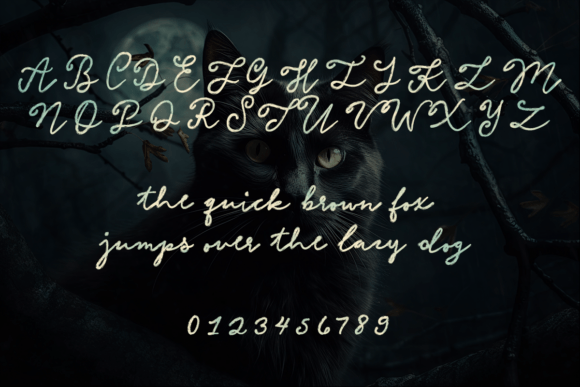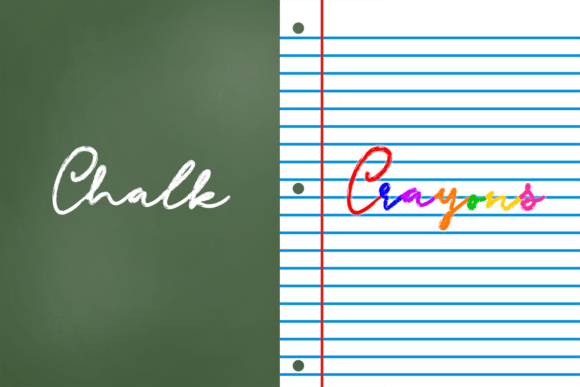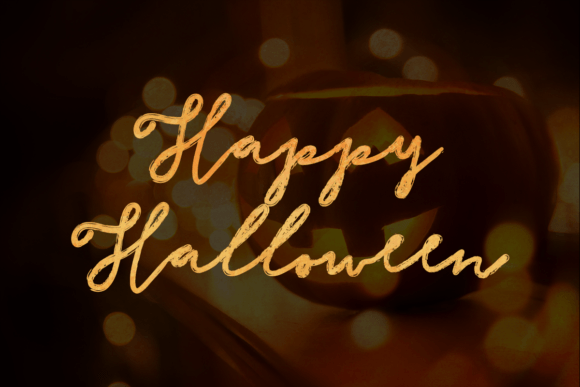
Introduction to Magical Rhymes Font
As a designer, there’s nothing quite like the thrill of discovering a new font that perfectly captures the essence of a creative project. For me, that moment came when I stumbled upon the Magical Rhymes Font – a whimsical cursive script that instantly transported me to a world of spooky fun and Halloween magic.
With its chalk-like, bouncy feel, the Magical Rhymes Font is a game-changer for designers looking to add a playful touch to their projects. Whether you’re crafting invitations, banners, or other spooky delights, this font is sure to bring a smile to your face and a dash of magic to your design. Its hand-drawn charm is simply irresistible, and its transparent background makes it a breeze to work with – a true high-quality design resource for any creative project.
Key Features of Magical Rhymes Font
- Unique and Creative Typography: Magical Rhymes Font offers a distinctive and imaginative style, perfect for creative projects that require a touch of whimsy.
- High-Quality Design Resource: This font is designed to provide a high-quality experience for designers, with clear and crisp lines that are ideal for a variety of design applications.
- Transparent Background: The Magical Rhymes Font features a transparent background, making it easy to combine with other design elements and create a seamless look.
- Perfect for Creative Projects: The Magical Rhymes Font is perfect for designers who are working on creative projects, such as children’s books, greeting cards, and other design applications that require a touch of magic and whimsy.
Honest Review: Magical Rhymes Font
I recently came across the Magical Rhymes Font, a free download that has both impressed and disappointed me. As a designer, I appreciate high-quality design resources, and this font is no exception. Its whimsical and playful feel makes it perfect for creative projects that require a touch of magic.
- ✨ Unique and eye-catching design: The Magical Rhymes Font is unlike any other font I’ve seen, making it an excellent choice for designers looking to add some personality to their work.
- ✨ Versatility: This font can be used for a wide range of creative projects, from children’s books to advertising campaigns.
- ✨ High-quality vectors: The font’s vectors are crisp and clean, making it perfect for designs that require a transparent background.
However, there are some limitations:
- ⚠️ Limited font weights: The Magical Rhymes Font only comes in a few font weights, which may limit its use in certain design contexts.
- ⚠️ No extended character set: The font only includes the standard Latin character set, which may not be suitable for designs that require non-Latin languages.
Overall, I think the Magical Rhymes Font is a great addition to any designer’s toolkit, but it’s not without its limitations. If you’re looking for a unique and high-quality font for your next creative project, this might be the perfect choice. Just be aware of its limitations before you start designing.
Magical Rhymes Font
The Magical Rhymes Font is a unique design resource that offers a high-quality, creative solution for your next project. With a transparent background, this font is perfect for overlaying text on images or creating eye-catching graphics.
Tips for Getting the Most Out of Magical Rhymes Font
For the best results, use the Magical Rhymes Font in conjunction with a high-quality image or background. Experiment with different font sizes and colors to create a visually appealing design.
The Magical Rhymes Font is perfect for a variety of creative projects, including:
- Social media graphics and posts
- Presentation slides and documents
- Logo designs and branding materials
- Infographics and data visualizations
Does the Magical Rhymes Font have a transparent background?
No, the Magical Rhymes Font does not have a transparent background. It’s a solid, high-quality font designed to be used on various backgrounds. However, you can use it with a transparent background if you’re using a design tool that supports it, such as Adobe Photoshop or Illustrator.